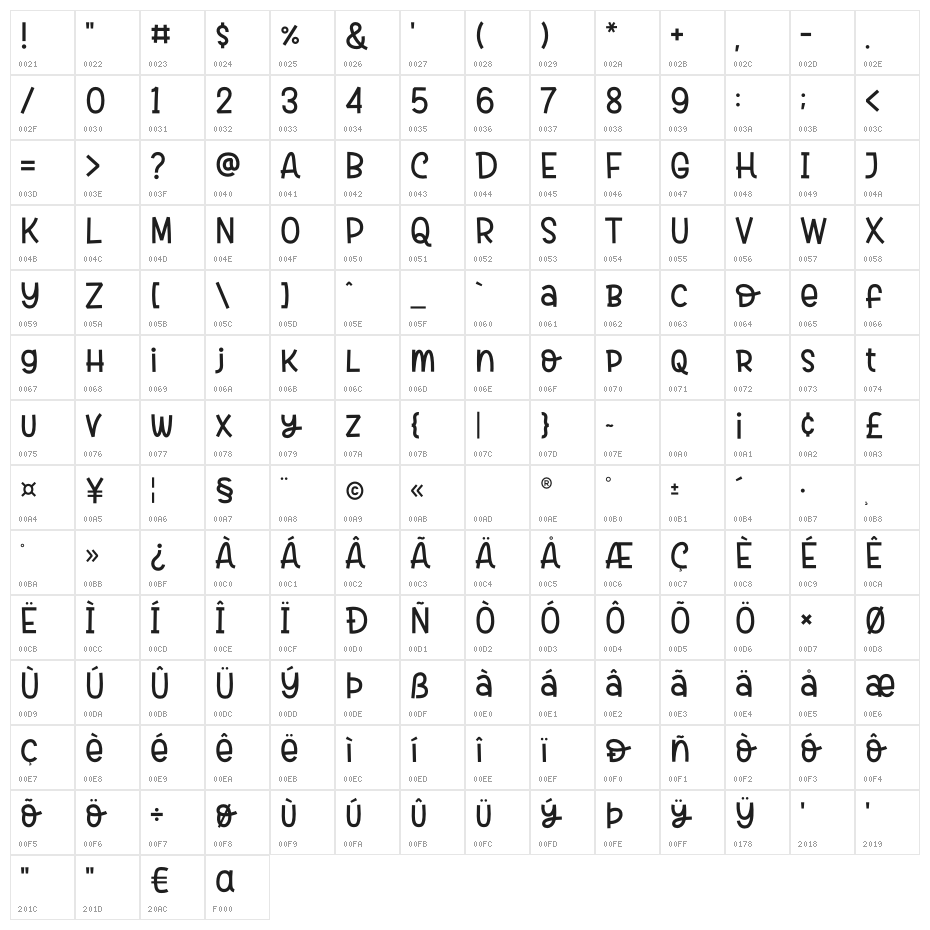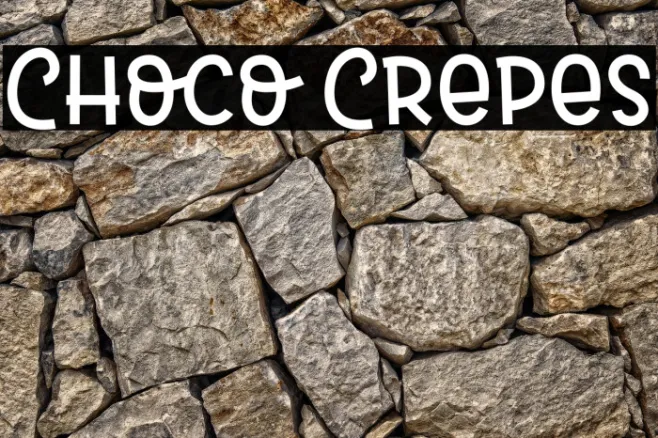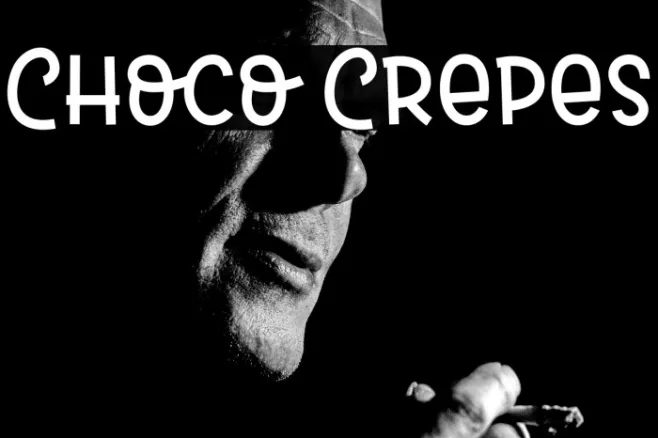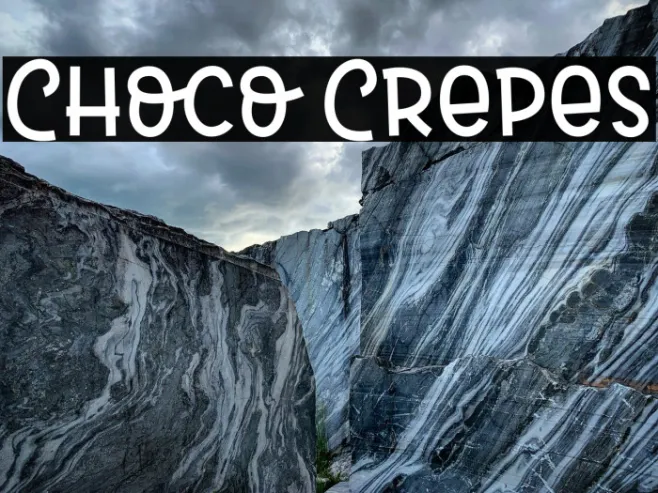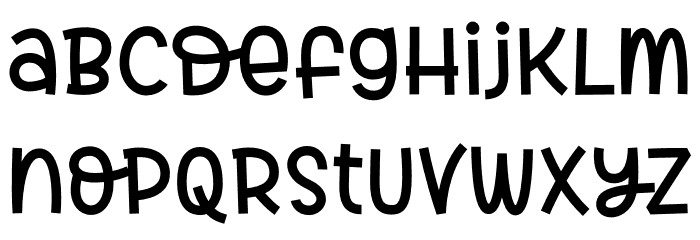
Choco Crepes Font
Choco Crepes Description
This playful and whimsical font features a bold and rounded style with a hand-drawn appearance. The characters are slightly irregular, giving them a friendly and approachable feel. The uppercase and lowercase letters maintain a consistent height, while the numbers and special characters complement the overall design. The strokes are thick and uniform, contributing to a strong visual presence. This font is ideal for projects that require a fun and informal touch, such as children's books, playful branding, or creative posters.
| Proposed Projects | Children's books, playful branding, creative posters, informal invitations. |